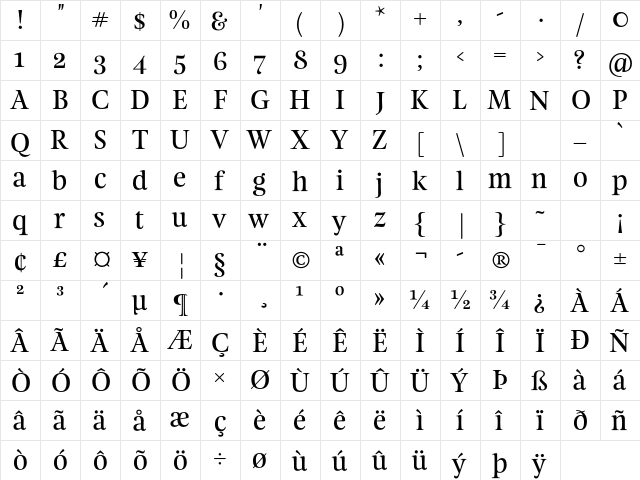
Feijoa Display
Design Context for Feijoa Typeface
Feijoa brings ornamental detail and strong personality to headlines and identities, where visual impact matters more than quiet functionality.
Font Pairing: Pair with a clean neutral sans-serif for body copy to let Feijoa's character lead without overwhelming the composition.
Pro Tip: Use Feijoa exclusively at display sizes — it was designed to be seen, not read at length. Let a neutral companion handle body copy.